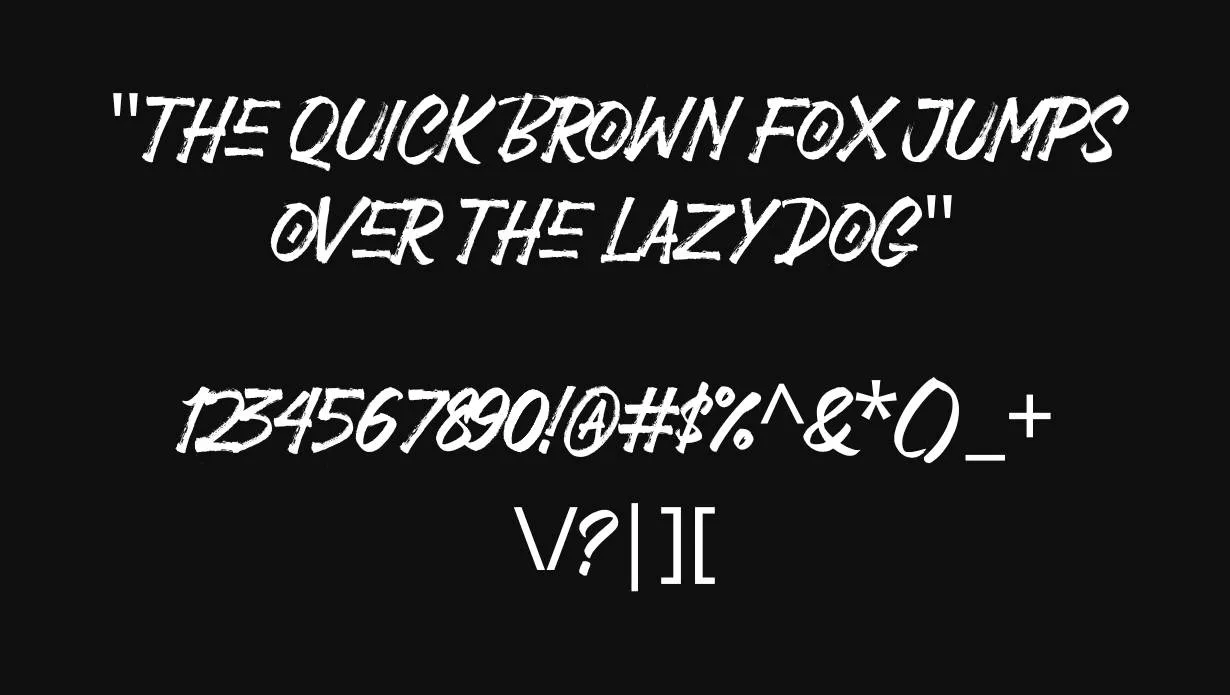
Black Jackal Font exudes a bold and impactful presence, making it ideal for projects that demand attention. Its strong characters and commanding design add a sense of power.
| Name | Black Jackal Font |
| Designer | Unknown |